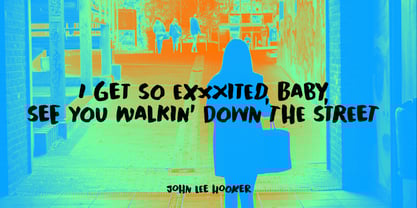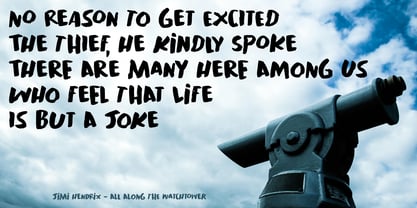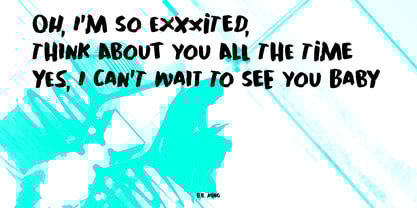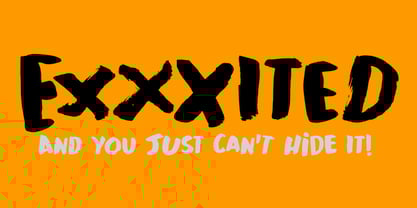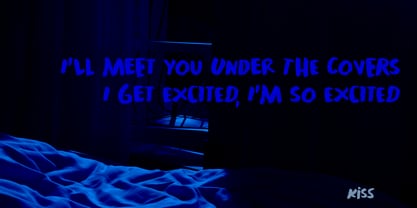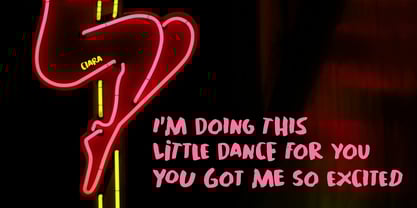
Exxxited
by Hanoded
The Exxxited Font Family was designed by David Kerkhoff and published by Hanoded. Exxxited contains 1 styles. More about this family
I was in a meeting the other day where some people, mostly from the US, were talking about new plans, new jobs - well, a lot of new things. I may be because I am Dutch, so I am not easily ruffled, but it struck me as odd that the speakers were using the words ‘I’m excited’ a lot when they were explaining what was to come. It was in fact used so much, hat the impact was lost imho. Like judges in a televised talent show, trying to outdo each other when complimenting a candidate.
As I said, it may be because I am Dutch and we tend to be a little more down tuned. When we want to tell people we’re really excited about a new job, or project, we use words like ‘leuk’ (nice), ‘interessant’ (interesting) or ‘ik heb er zin in’ (I really feel like it).
This font, Exxxited (yes, with three x’s and without a c) was the result of this bizarre online meeting. It is a loud, in your face kind of font - ideally suited for posters, book covers and campaigns. I hope you’ll get excited!
About Hanoded
Hanoded is run by Dutchman David Kerkhoff. His fonts are a mishmash of styles, as he just creates whatever pops into his head. You will find a lot of brush fonts in his collection, as his favourite tools are brushes and Chinese ink, with cartoon style fonts and script fonts complementing his repertoire. Aside from making fonts, David occasionally guides tours in far-flung places, renovates his '30's house and tries reasoning with his wife and (teenage) kids. Not an easy task!